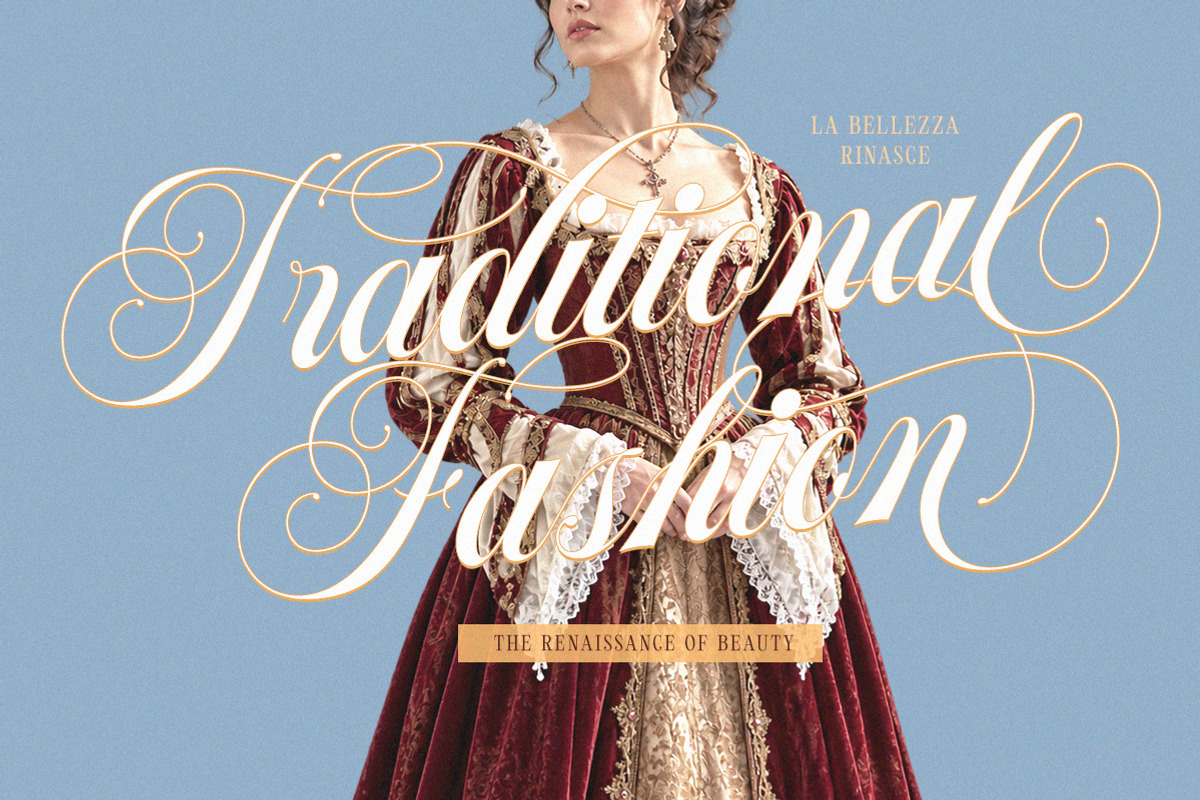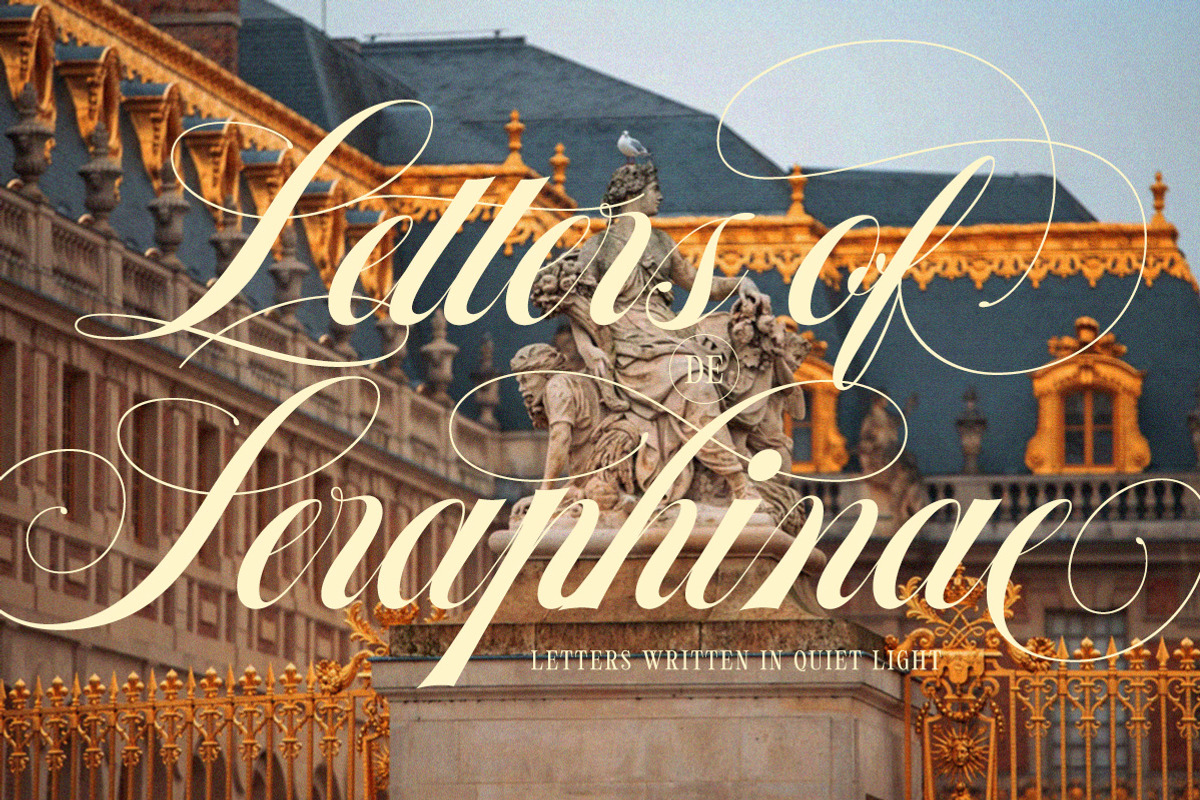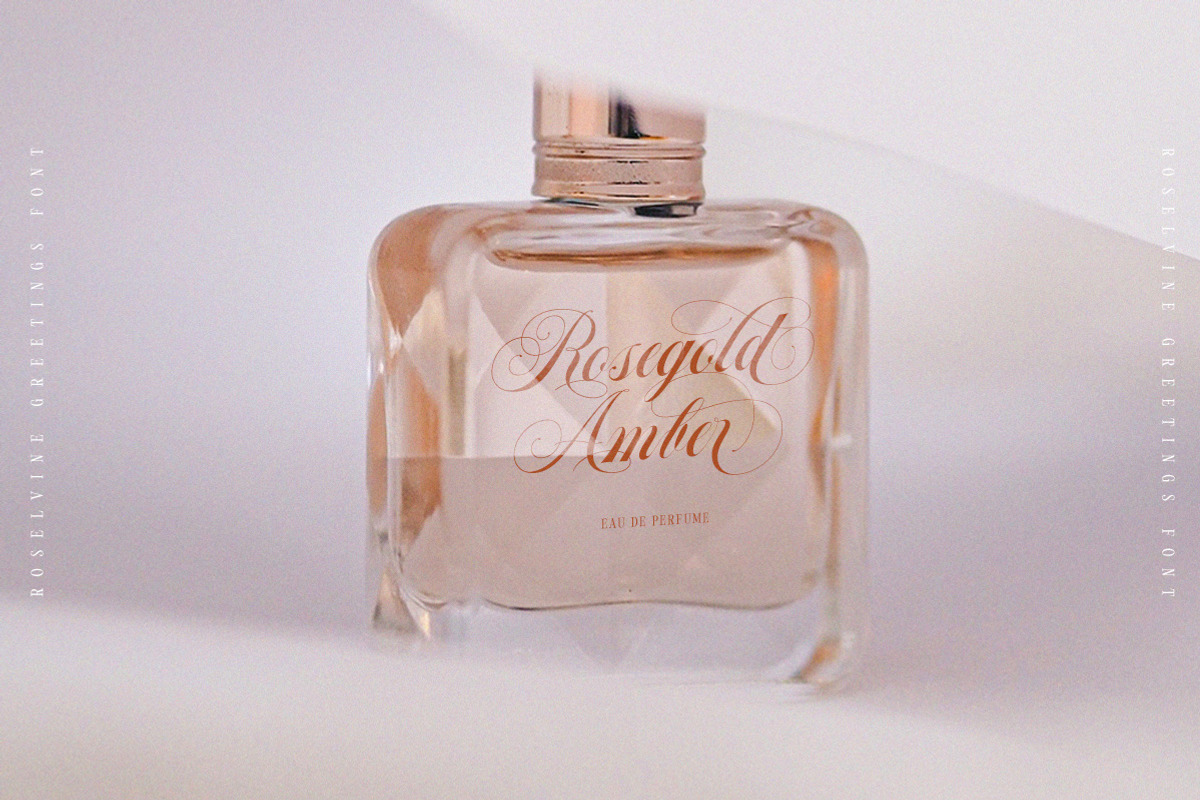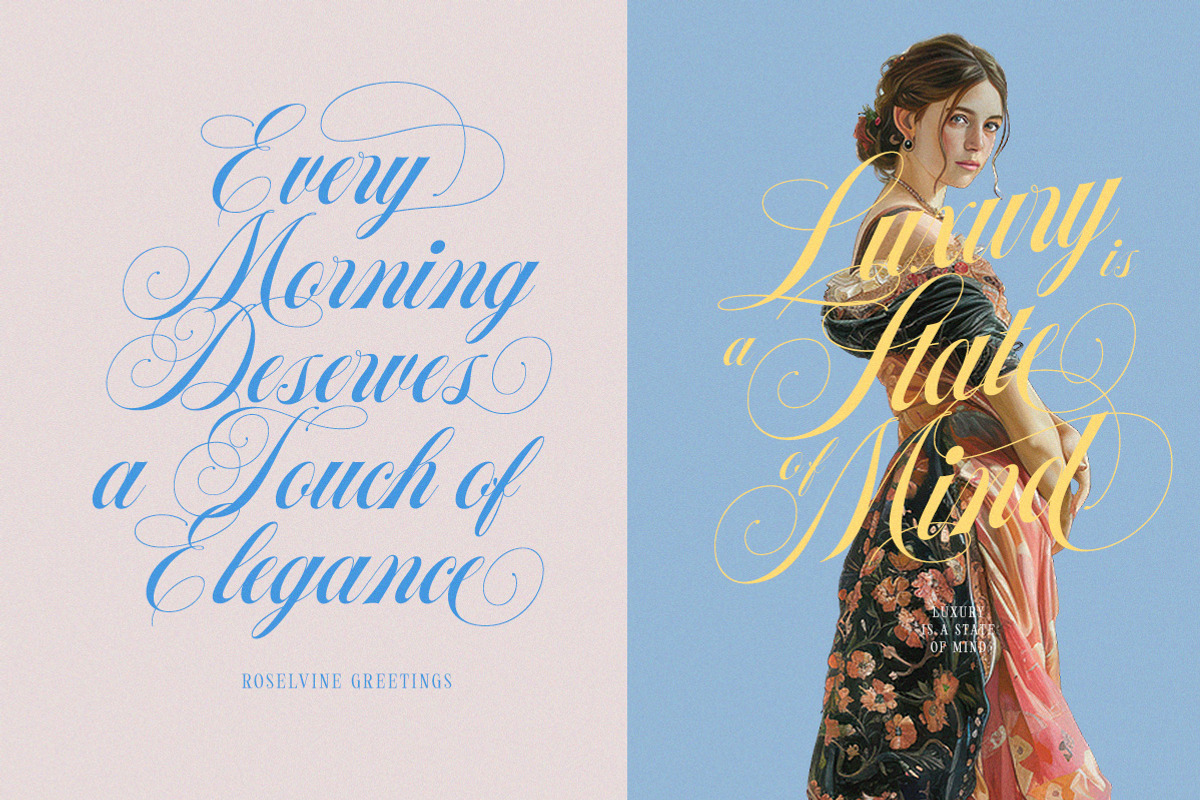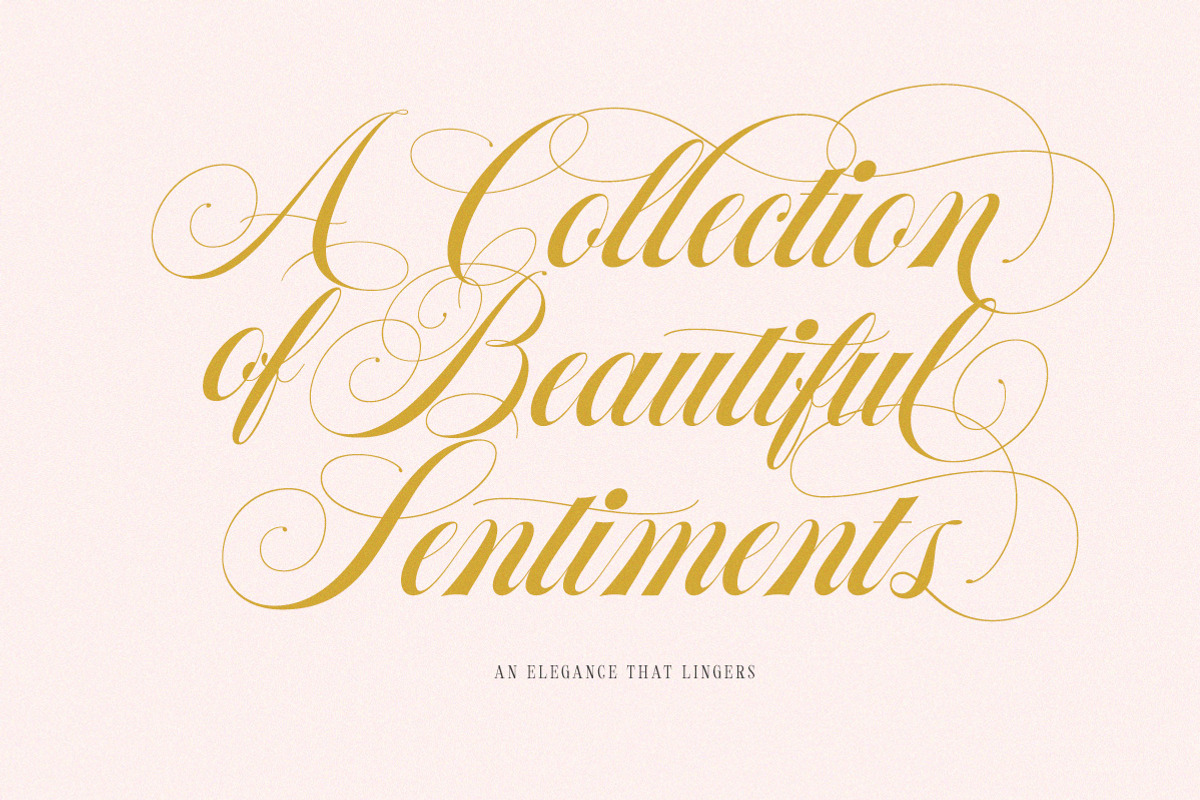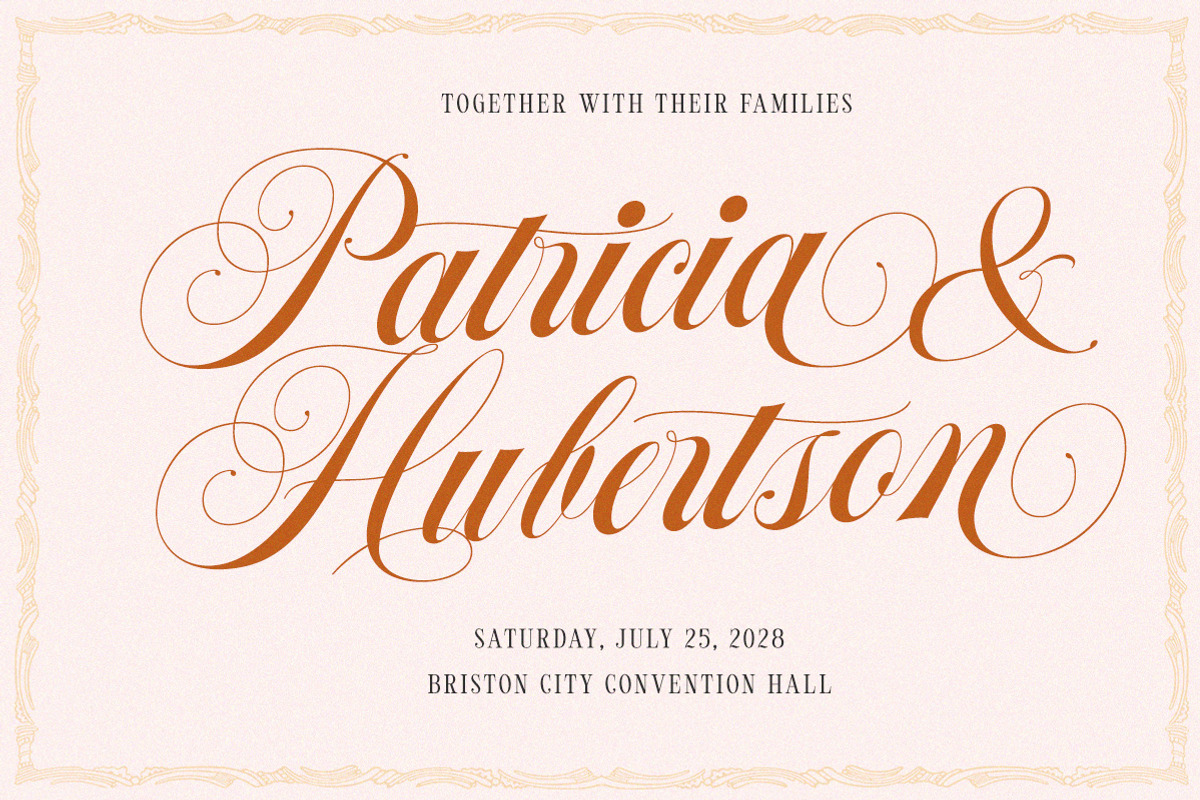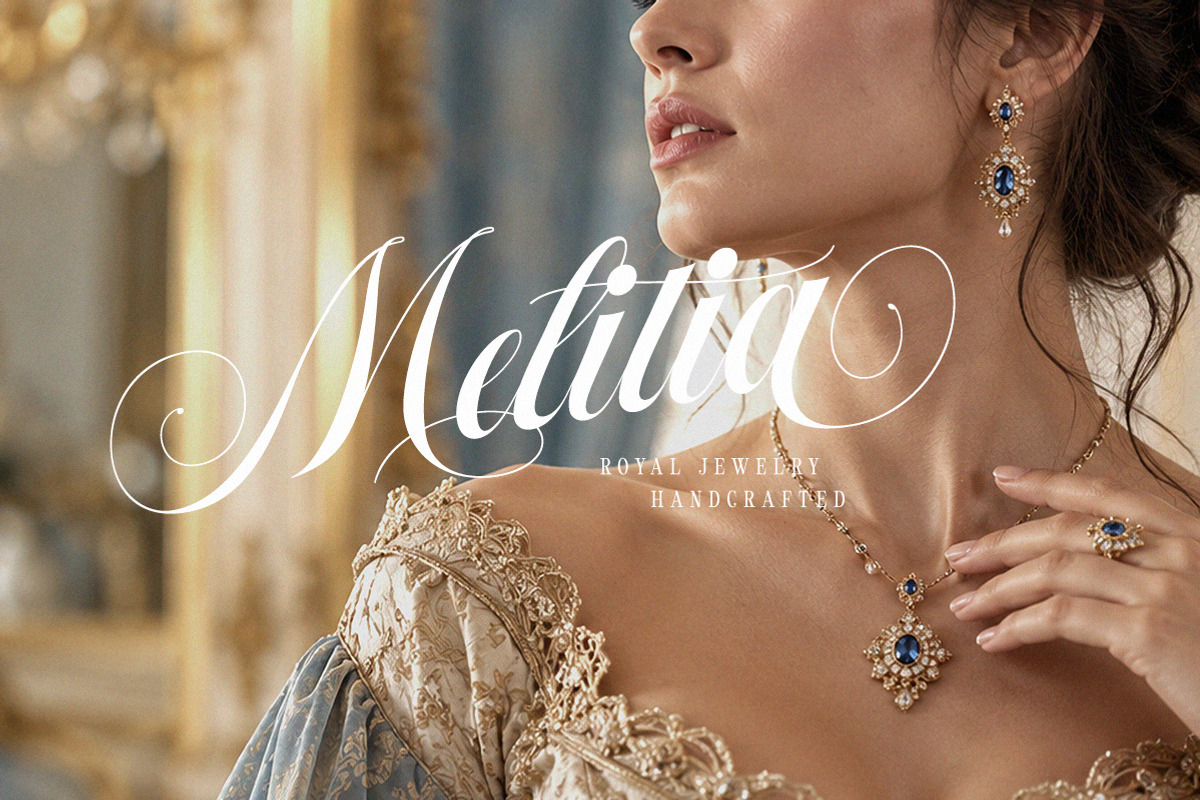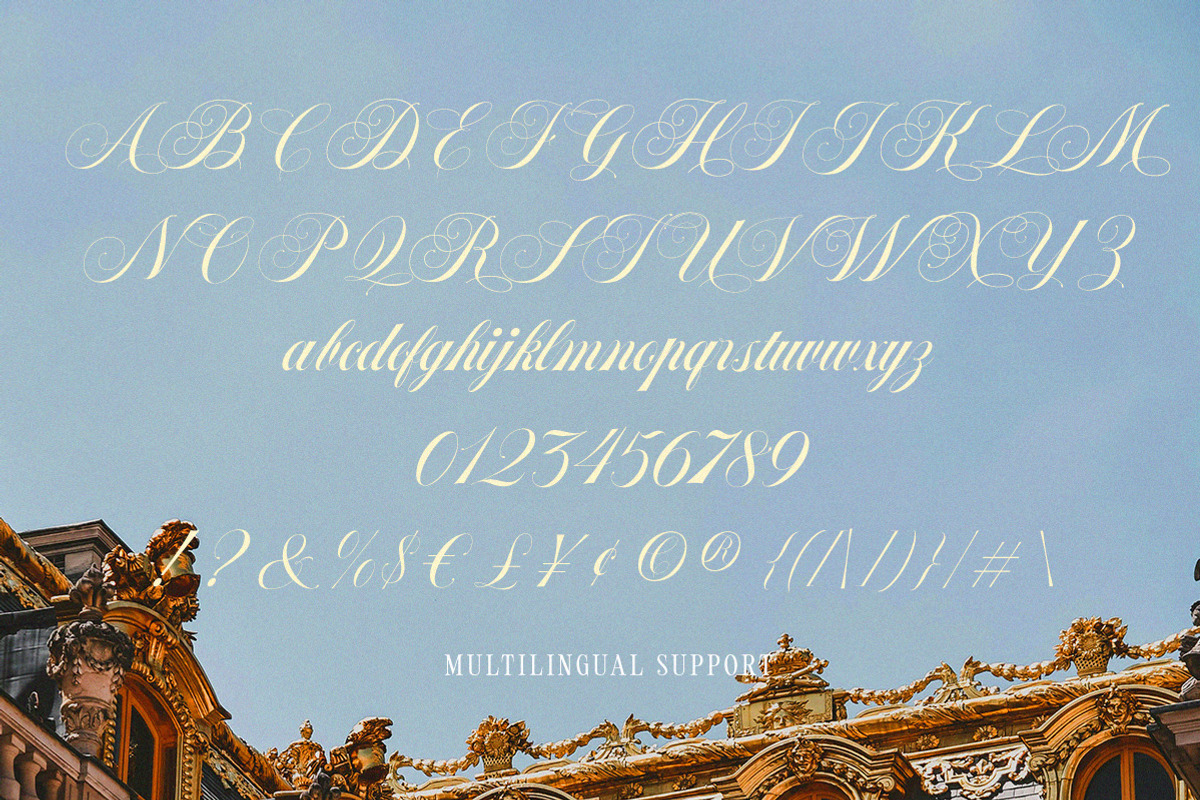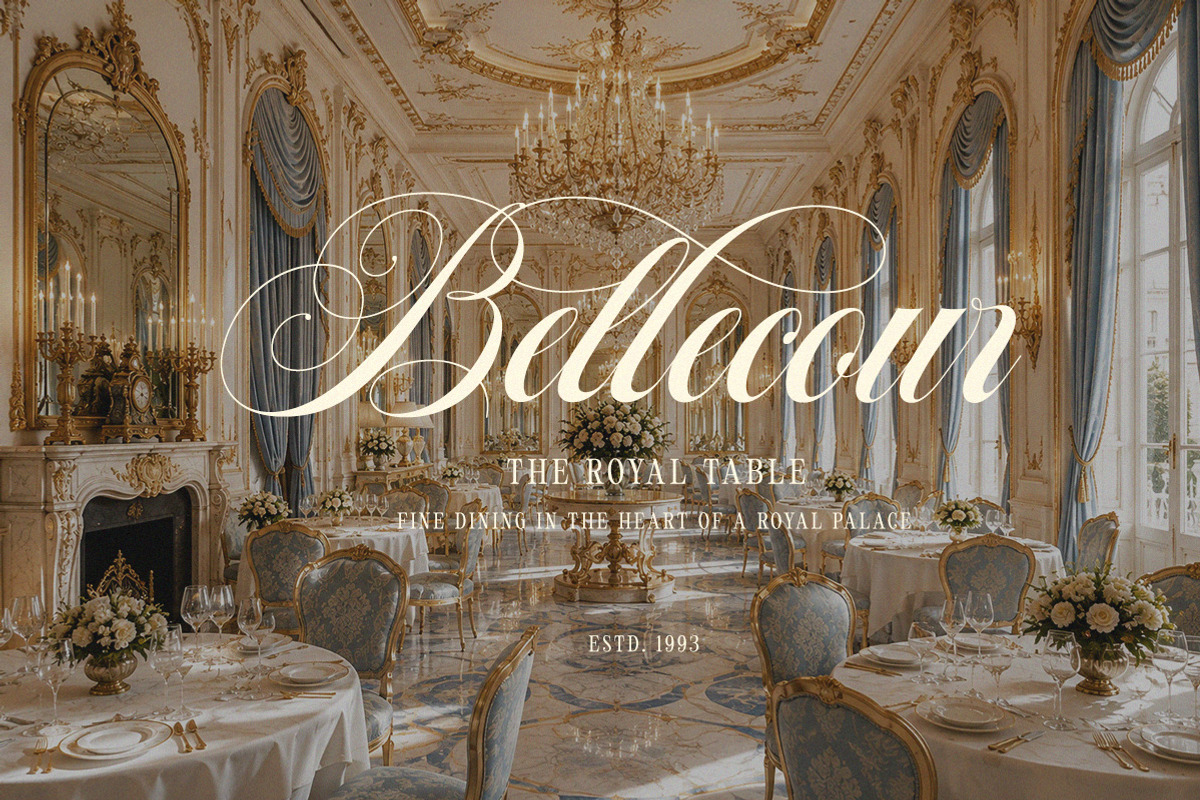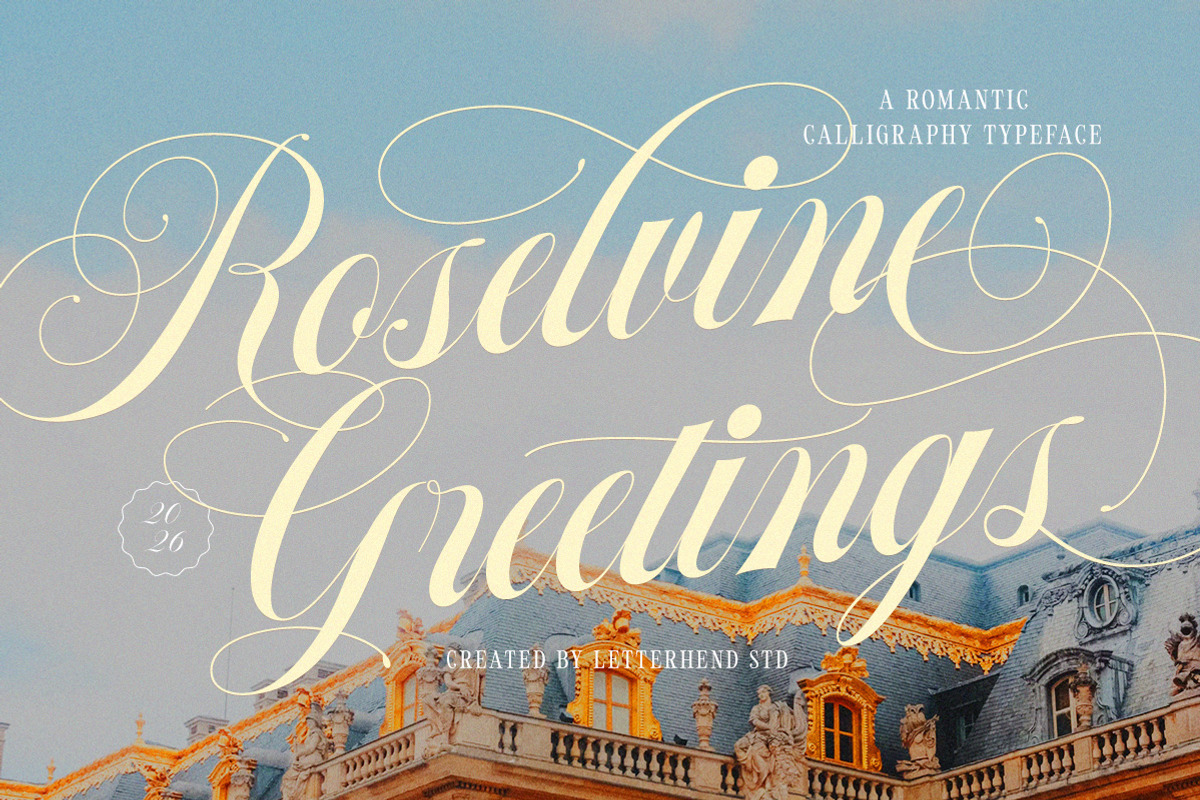
Roselvine Greetings Romantic Script
Roselvine Greetings drifts across the page with the grace of a handwritten love letter, pairing sweeping flourishes, slender curves, and dramatic calligraphic strokes with an unmistakably romantic presence. Its ornate letterforms carry a sense of European grandeur and vintage refinement, while the flowing rhythm keeps every composition soft and expressive rather than overly formal.
Uppercase & lowercase
Numbers and punctuation
Alternates & Ligatures